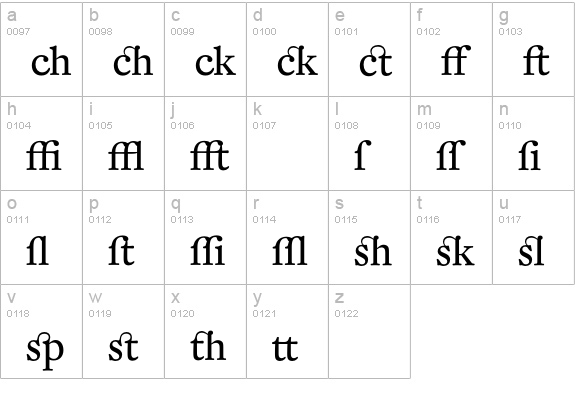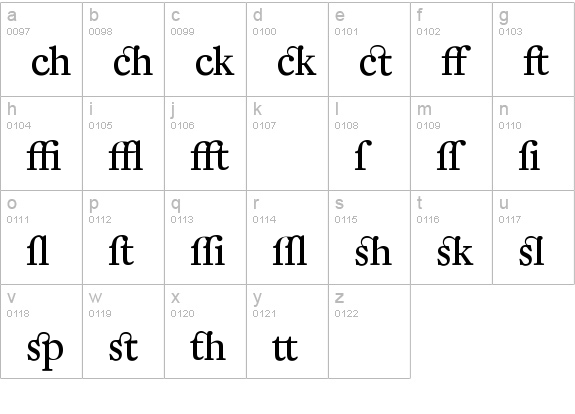
DTLFleischmannTAlternate Font Details
The DTLFleischmannTAlternate font is a unique and versatile typeface that adds a touch of elegance and sophistication to any design project. With its distinctive letterforms and intricate details, this font is perfect for creating eye-catching headlines, logos, and branding materials. This font is available for free download at FontsMarket.com, making it easily accessible to designers and creatives looking to add a touch of flair to their work. Whether you're working on a print or digital project, the DTLFleischmannTAlternate font is sure to make a lasting impression with its timeless style and artistic appeal. Don't miss out on the opportunity to enhance your designs with this exquisite font. Download the DTLFleischmannTAlternate font for free today and see how it can elevate your creative projects to new heights.